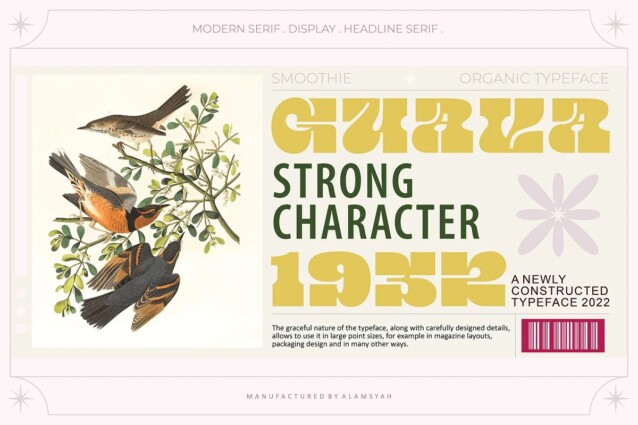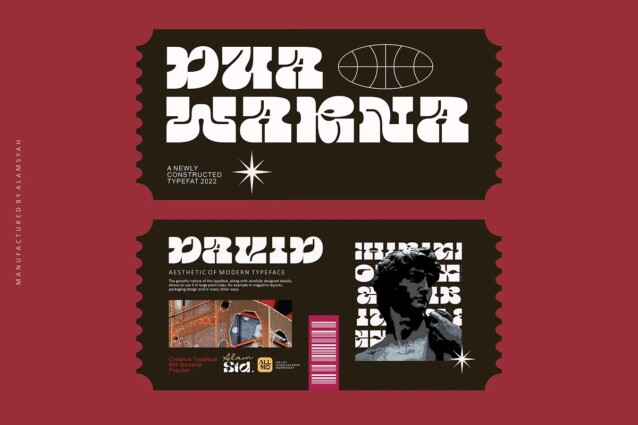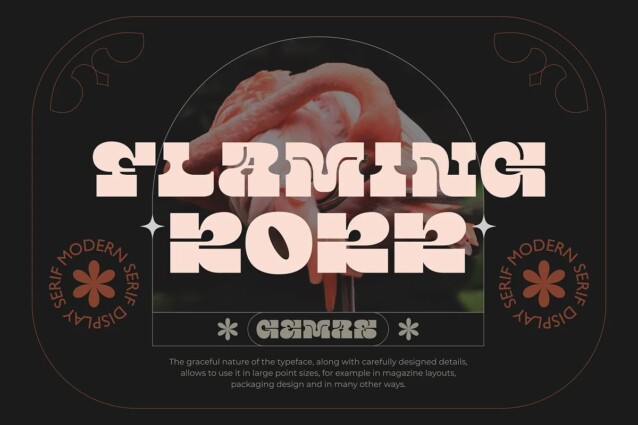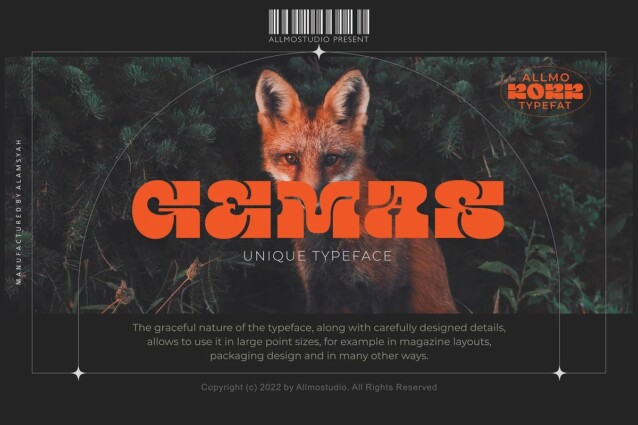
Gemas Font
Gemas Font is a display font created by Allmostudio with a retro vintage style bold typeface. Each letter shape has been designed to have a character that is easily recorded in the mind. This font has cute and classy characters, clean lines, and smooth curves giving any project an extra touch of class.
A serif modern and wide typeface that his own unique style & modern look. This typeface is perfect for large point sizes, for example in magazine layouts, packaging, book, title design, fashion brand, clothes, lettering, quotes design, and many other ways to your work.